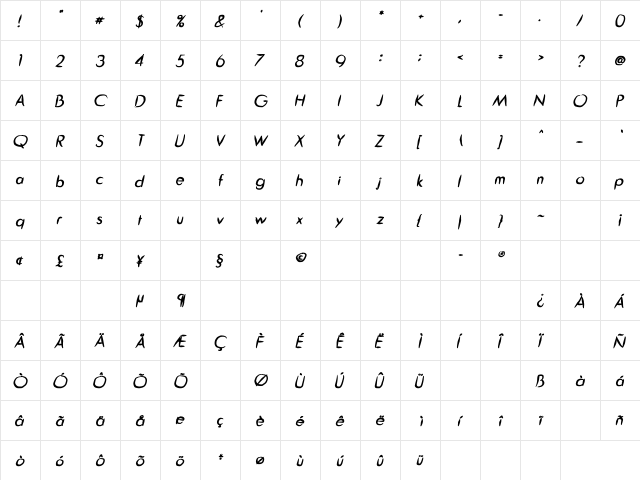
Guitar from Tree Bold Italic Font Preview
Guitar from Tree Bold Italic
Guitar from Tree Bold Italic Font Details
Design Context for Guitar from Tree Typeface
Guitar from Tree takes a measured approach to typography — its balanced proportions and neutral character make it a reliable workhorse for both digital and print work. The dynamic lean of this cut emphasises speed and emphasis in any layout. Its bold stroke weight gives it real presence on the page.
Pro Tip: Use Guitar from Tree for emphasis, pull quotes, and subheadings where its slanted energy can add rhythm to the layout.